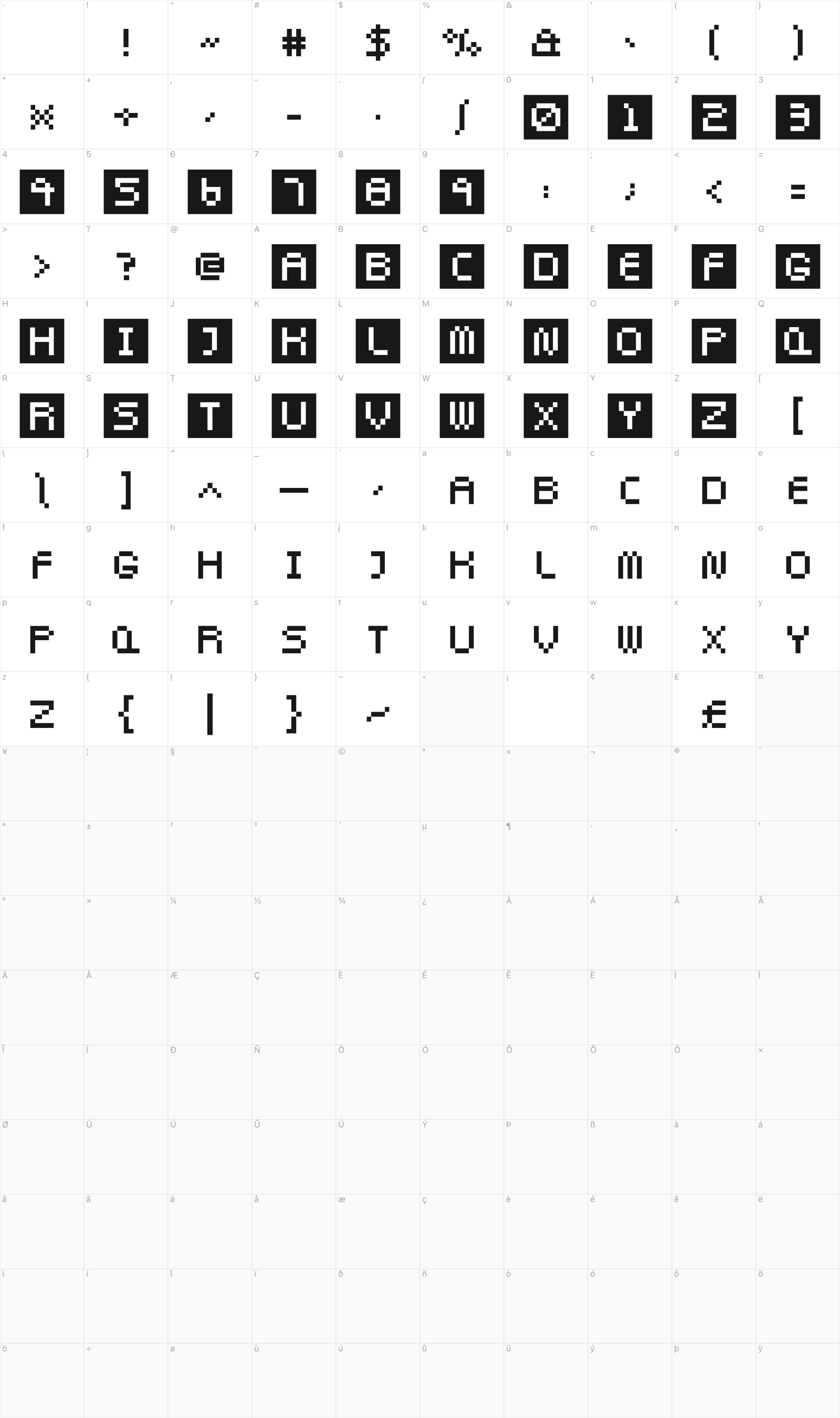
Pixel Twist
by Simon Murdoch
Pixel Twist is a bold bitmap display font built on a strict pixel grid, channeling the look of early arcade screens and classic LCD readouts. Every stroke is composed of square pixel blocks with no contrast variation, giving it a raw, unambiguous digital character. It works best large, where the grid structure reads as intentional style rather than limitation.